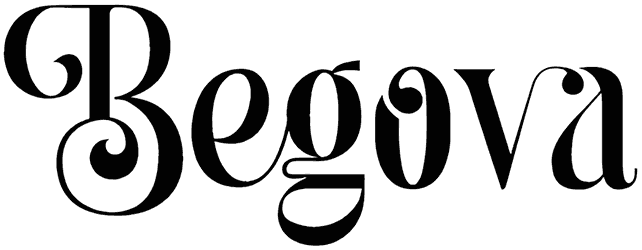
Ghaitsa Font
Giving your digital artwork a polished, modern look while sticking to a professional tone is easy with the Ghaitsa font. Because of the striking appearance it provides, this ligature font is often chosen for usage in advertisements, flyers, and the fashion and apparel industries.
Keeping things the same or breaking with convention—the choice is yours. If you enjoy a challenge, using this font will impress your client beyond their wildest dreams.
Designed by: Aqeel_Art